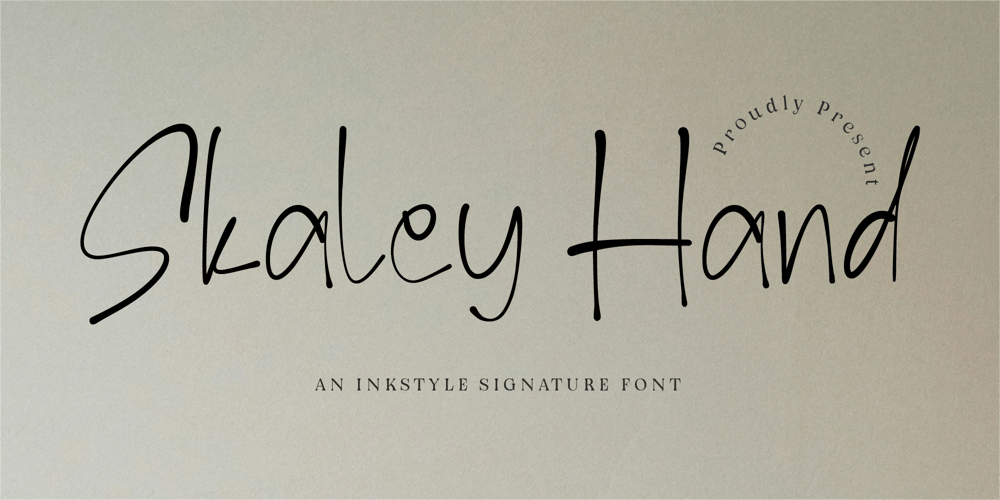
CF Skaley Hand
CF Skaley Hand font
CF Skaley Hand Font Family was designed by Gilang Mei Nugraha, Frederik Aristaputra and published by Creatifont Studio. CF Skaley Hand contains 2 styles and family package options. Skaley Hand – An Elegant Inkstyle Signature FontStep into elegance with Skaley Hand, a signature handwritten font designed in a refined ink-style monoline. With its delicate curves, natural pen flow, and clean minimalism, this typeface evokes professionalism with a personal touch.Perfect for branding, logo design, fashion labels, photography watermarks, stationery, quotes, or upscale packaging, Skaley Hand brings a high-end handwritten feel to your creative projects. Its tall letterforms and soft strokes mimic a true signature—graceful, modern, and stylish.Why Choose Skaley Hand?🖋 Signature Ink Style: Inspired by elegant penmanship with soft, fluid lines.💼 Perfect for Personal Branding: Ideal for logos, business cards, and professional projects.🧾 Minimalist & Modern: Thin and airy design that stays effortlessly readable.🌍 Multilingual Ready: Includes numbers, punctuation, and wide language support.Make your mark with Skaley Hand—Download now and let your brand speak with elegance and confidence. ✍️✨A SUMMARY OF WHAT’S INCLUDED:- Standard Character A-Z, a-z, 0-9, Punctuation & symbols- Regular and Italic- Works on PC & Mac- Simple installation- Accessible in Adobe Creative Suite (Ai, Ps, Id, etc.) even work on Microsoft Word.- PUA Encoded Characters – Fully accessible without additional design software.🌟If you come across any issues or notice anything we might have overlooked while using this product, please feel free to reach out to us. We greatly value your feedback as it helps us enhance and refine our products. Thank you!